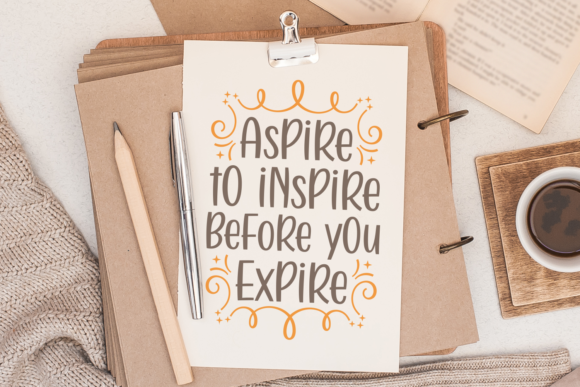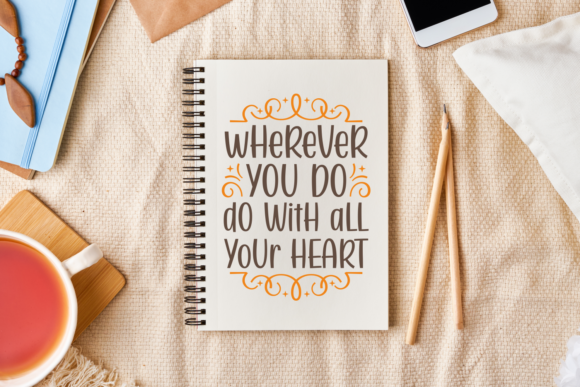
Introduction to Pidater Font
You know that moment when you’re working on a creative project, and the right font makes all the difference? The words start flowing, and your design begins to come alive. For designers, finding the perfect font can be a game-changer. And that’s where the Pidater Font comes in – a friendly sans serif typeface with a playful look and feel that’s sure to bring your next project to life.
With its high-quality design and transparent background, the Pidater Font is a valuable resource for any designer. Whether you’re working on a personal project or a commercial design, this font is sure to add a touch of personality and whimsy to your work. And the best part? It’s available for free download, making it a must-have for any design enthusiast.
Key Features of Pidater Font
- Includes a variety of glyphs and characters, making it a versatile font suitable for various creative projects.
- Designed to provide high-resolution output, ensuring crisp and clear text at various sizes and resolutions.
Honest Review: Pidater Font
I recently had the chance to work with the Pidater Font for a creative project, and I’m excited to share my thoughts with you. As a designer, I’m always on the lookout for high-quality design resources that can elevate my work.
What works well with Pidater Font is its versatility. It’s a modern sans-serif font that’s perfect for a wide range of creative projects, from logos to digital products. I particularly appreciate the transparent background, which makes it easy to work with in various design tools.
- ⚠️ Limited character set: While the font has a wide range of characters, it’s not exhaustive. This may not be a concern for smaller projects, but it could be an issue for more complex designs.
- ⚠️ Not ideal for print projects: The font’s design is more suited for digital applications, so it may not be the best choice for print materials.
Overall, I’m impressed with the Pidater Font. Its high quality and versatility make it a valuable addition to any designer’s toolkit. With a few limitations in mind, it’s a great resource for designers working on creative projects.
The Pidater Font is a high-quality design resource perfect for creative projects that require a unique touch. With a transparent background, this font is versatile and can be used in various contexts.
Getting the Most Out of Pidater Font
To get the most out of the Pidater Font, experiment with different font sizes, colors, and combinations. You can also use it in conjunction with other design elements to create visually appealing graphics.
The Pidater Font is perfect for various use cases, including:
- Creative projects, such as graphic design, logo creation, and branding.
- Business presentations, reports, and documents.
- Personal projects, such as social media graphics, flyers, and brochures.
Q: Can I use the Pidater Font with a transparent background?
Yes, the Pidater Font is designed to be used with a transparent background, making it perfect for creative projects that require a high level of customization. Simply use the font with your preferred design software and adjust the background as needed. Keep in mind that some design software may have limitations when working with transparent backgrounds, so be sure to check your software’s documentation for more information.